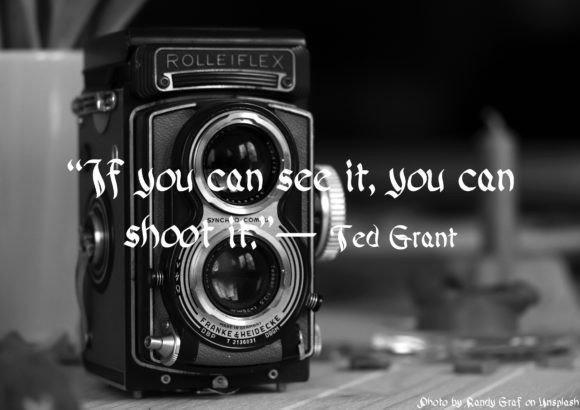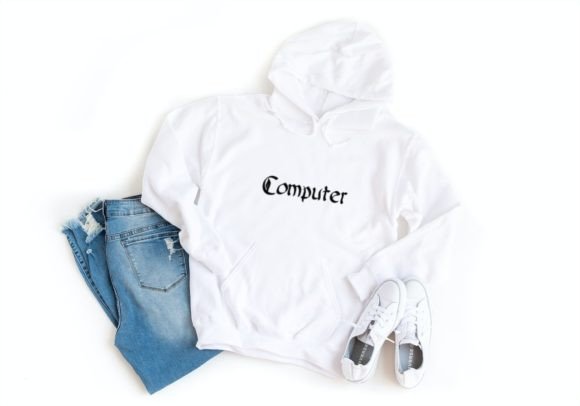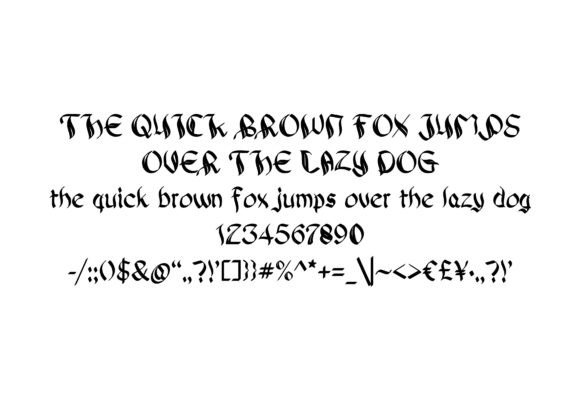
Ah, the eternal quest for the perfect font! I still remember the time I was working on a project for a client who wanted a elegant and versatile typeface that would make their brand stand out. I spent hours scouring the internet, trying out different fonts, but nothing seemed quite right. That was until I stumbled upon Counter Theblack – a game-changer in the world of typography.
A First Impression: Counter Theblack
Counter Theblack is a stunning typeface that boasts over 218 letters, including Latin characters. Designed with both form and function in mind, this font is perfect for various uses, whether for print or digital media. Its elegant lines and versatile design make it an excellent choice for designers, crafters, and creative hobbyists alike.
- ✨ Elegant and sophisticated design
- ✅ Highly versatile – works well in both print and digital media
- 🔥 Extensive character set – over 218 letters!
- 👍 Excellent for body text, headings, and titles
- 🤔 Some users may find the font a bit too slender for certain design applications
- ⚠️ Limited availability of certain special characters
The Story Behind Counter Theblack
Counter Theblack was designed with the goal of creating a versatile and elegant typeface that would meet the needs of modern designers. Inspired by classic typography and modern design trends, this font is the result of meticulous craftsmanship and attention to detail.
Q: What is the character set of Counter Theblack?
A: Counter Theblack features an extensive character set of over 218 letters, including Latin characters.
Q: Is Counter Theblack suitable for body text?
A: Yes, Counter Theblack is an excellent choice for body text, thanks to its elegant design and high legibility.
Q: Does Counter Theblack support OpenType features?
A: Yes, Counter Theblack supports OpenType features like glyphs and stylistic alternates, making it a versatile choice for designers.